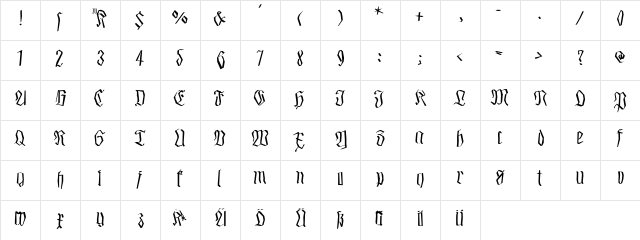
SmallEdgedFrax Regular
Design Context for SmallEdgedFrax Typeface
SmallEdgedFrax is a composed and adaptable typeface that performs quietly and consistently across a wide range of design contexts.